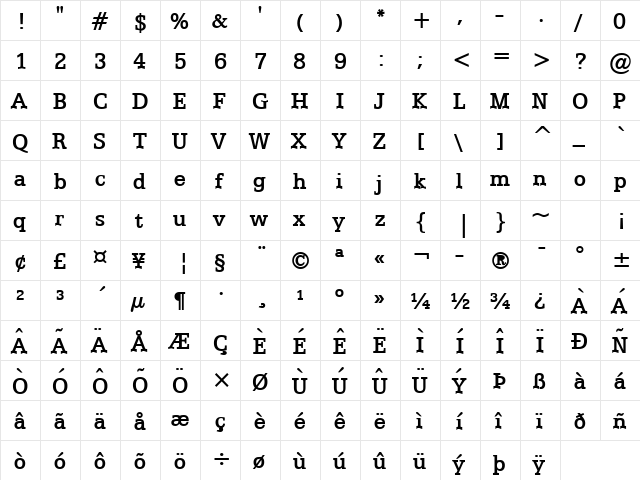
Eggo Bold
Design Context for Eggo Typeface
Eggo takes a measured approach to typography — its balanced proportions and neutral character make it a reliable workhorse for both digital and print work. The heavy weight commands attention and anchors typographic hierarchies.